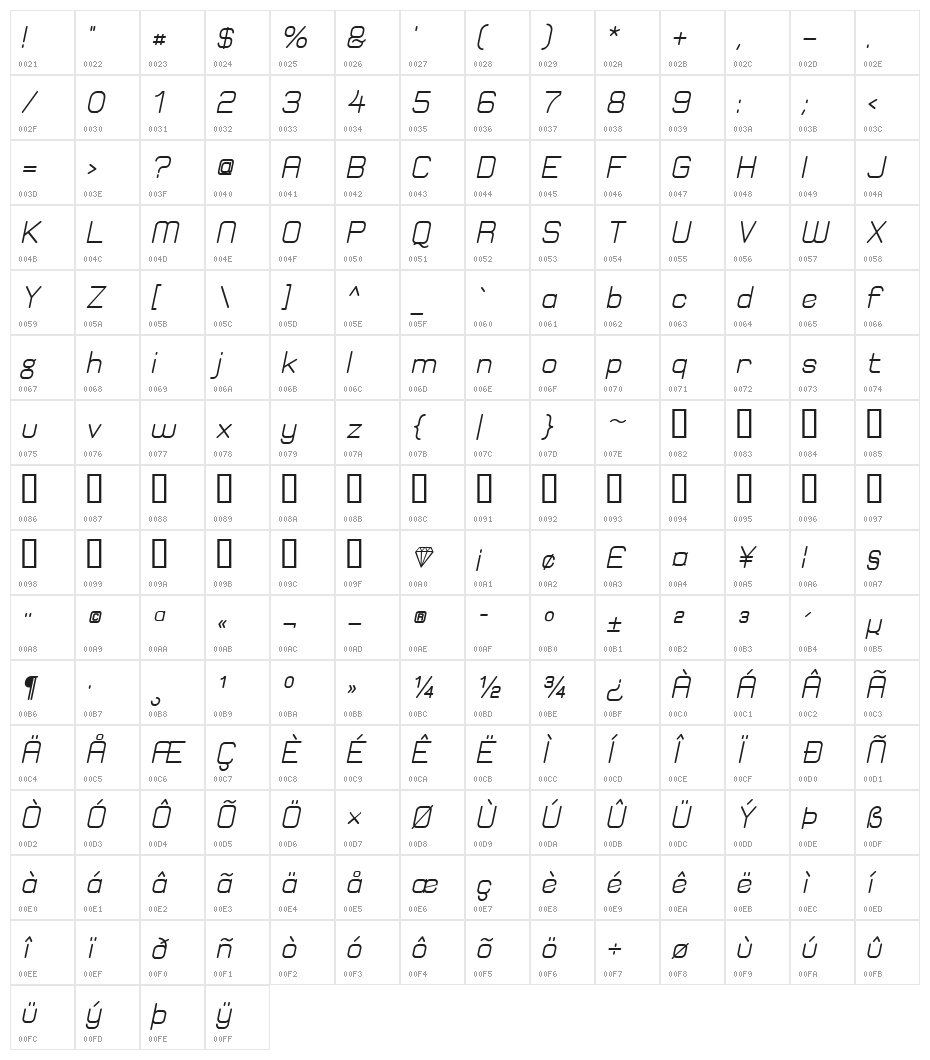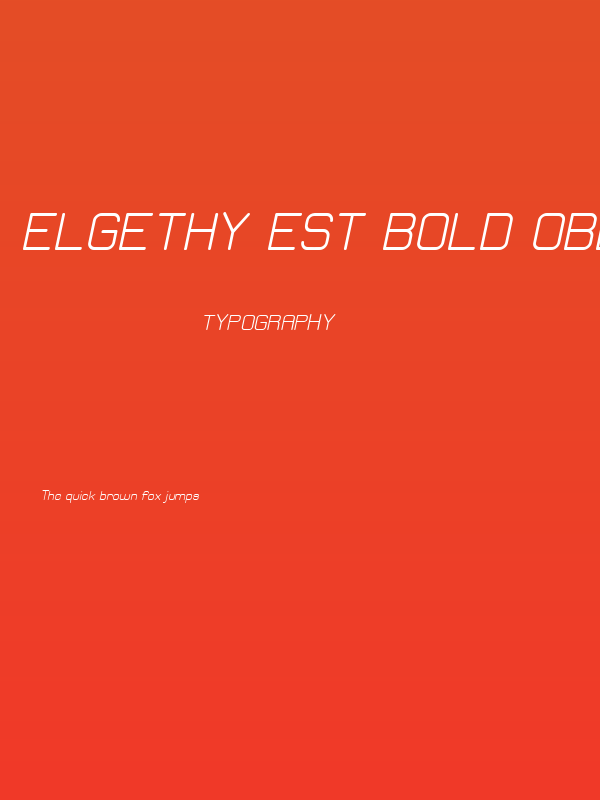
Elgethy Est Bold Oblique Font
Elgethy Est Bold Oblique Description
This font features a sleek, modern design with a distinct oblique slant, giving it a dynamic and forward-moving appearance. The characters are crafted with a uniform stroke width, providing a clean and consistent look across all letters and numbers. The uppercase and lowercase letters maintain a harmonious balance, with rounded edges that soften the overall aesthetic. The numerals are clear and legible, making them suitable for various applications. Special characters are included, each designed to match the font's overall style, ensuring versatility in use.
| Use Case | Headlines, Logos, Digital Interfaces |
| Proposed Projects | Ideal for tech branding, modern advertising, and digital interfaces. |